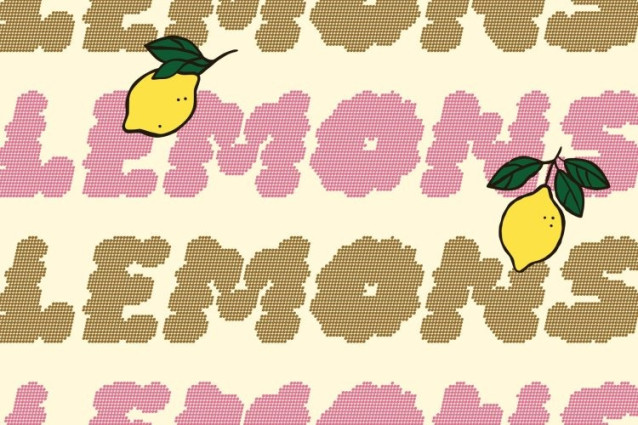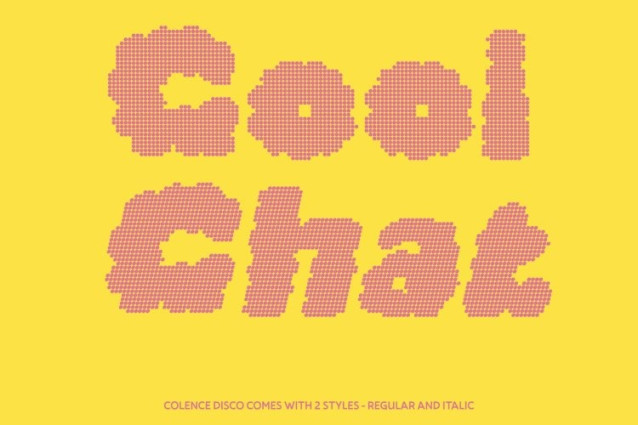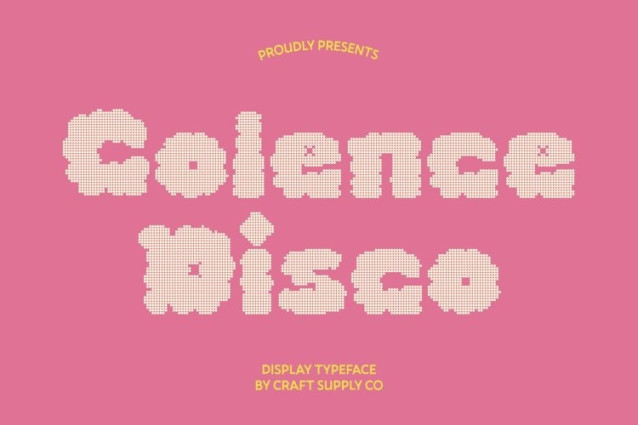
Colence Disco Font
Colence Disco Font This draws inspiration from fluffy, floating clouds, translating their soft and whimsical charm into expressive letterforms. Enhanced with a subtle disco rhythm, the font feels light, bouncy, and full of movement like clouds drifting under colorful lights on a joyful dance floor.
Engaging Display Typeface with Festive Energy
Designed as a display typeface, this font instantly captures attention. Its rounded, cloud-like shapes create a fun and curious visual tone, while the disco influence adds excitement and sparkle, making it perfect for designs that need to feel lively and celebratory.
Soft, Cloud-Like Forms that Delight
With its puffy contours and friendly proportions, this font brings warmth and charm to every composition. From posters and banners to packaging and social media graphics, it adds a cheerful, imaginative touch that’s easy to love and hard to ignore.
Versatile for Playful and Creative Designs
Beyond its whimsical appearance, this font remains versatile across a wide range of creative applications. It adapts smoothly to different layouts while maintaining its distinctive cloud-inspired personality ideal for projects that want to feel fun, fresh, and full of disco-inspired joy.